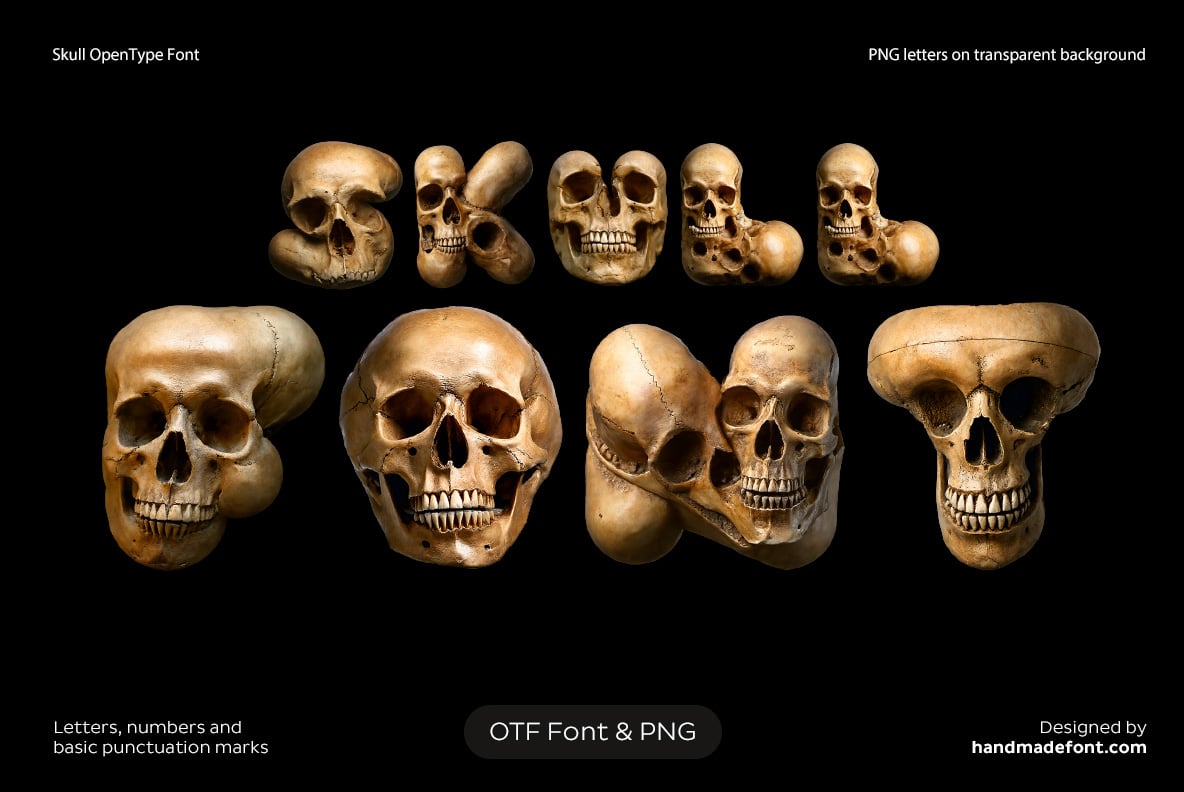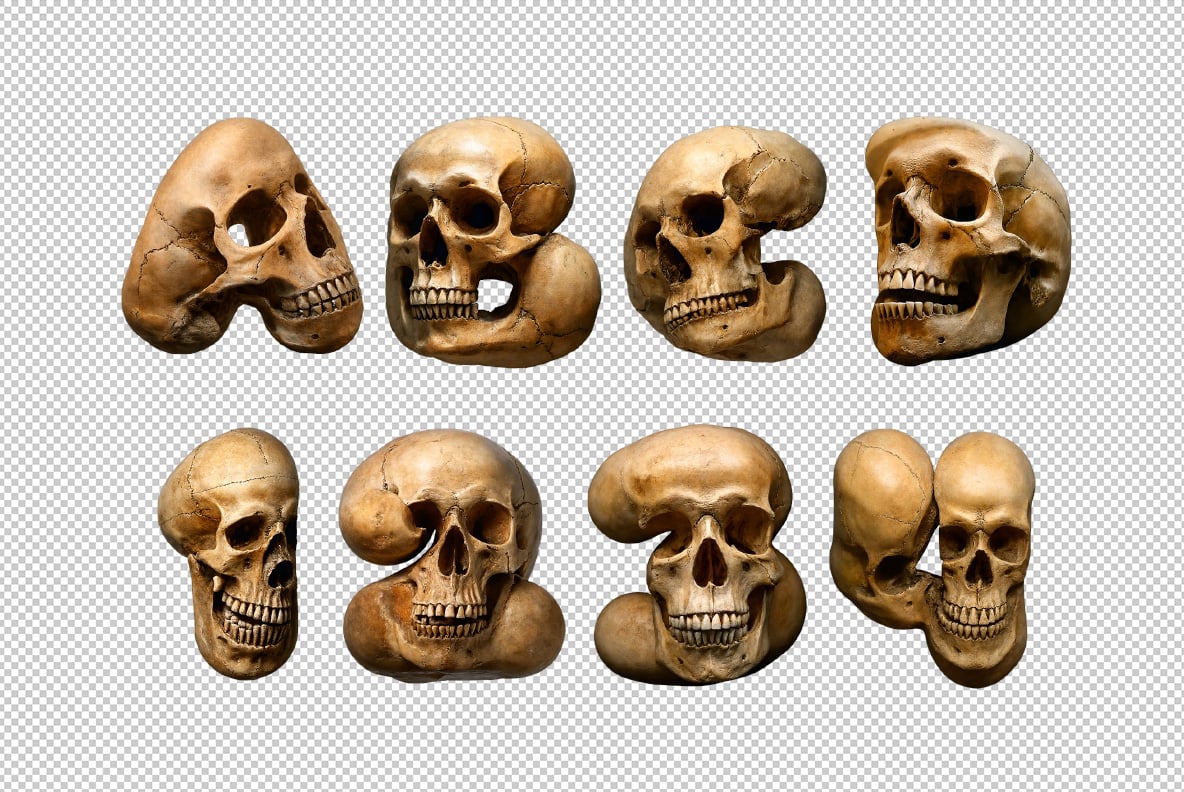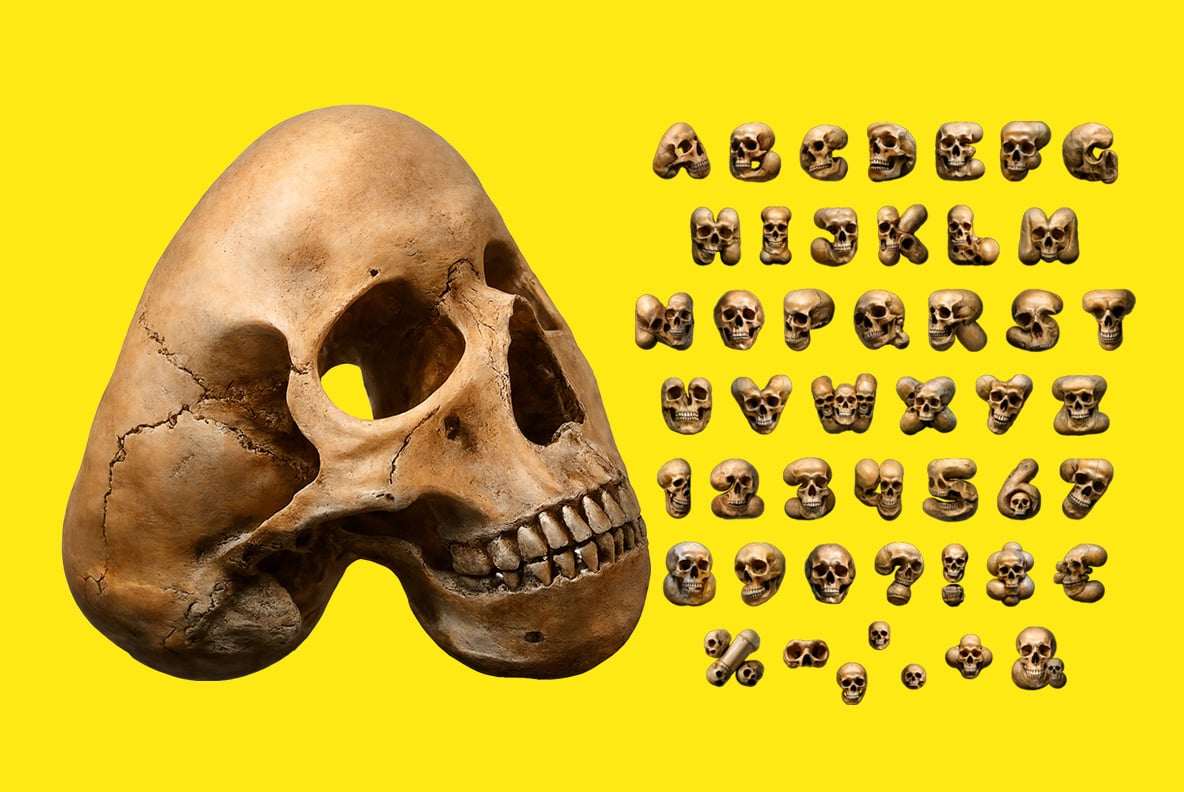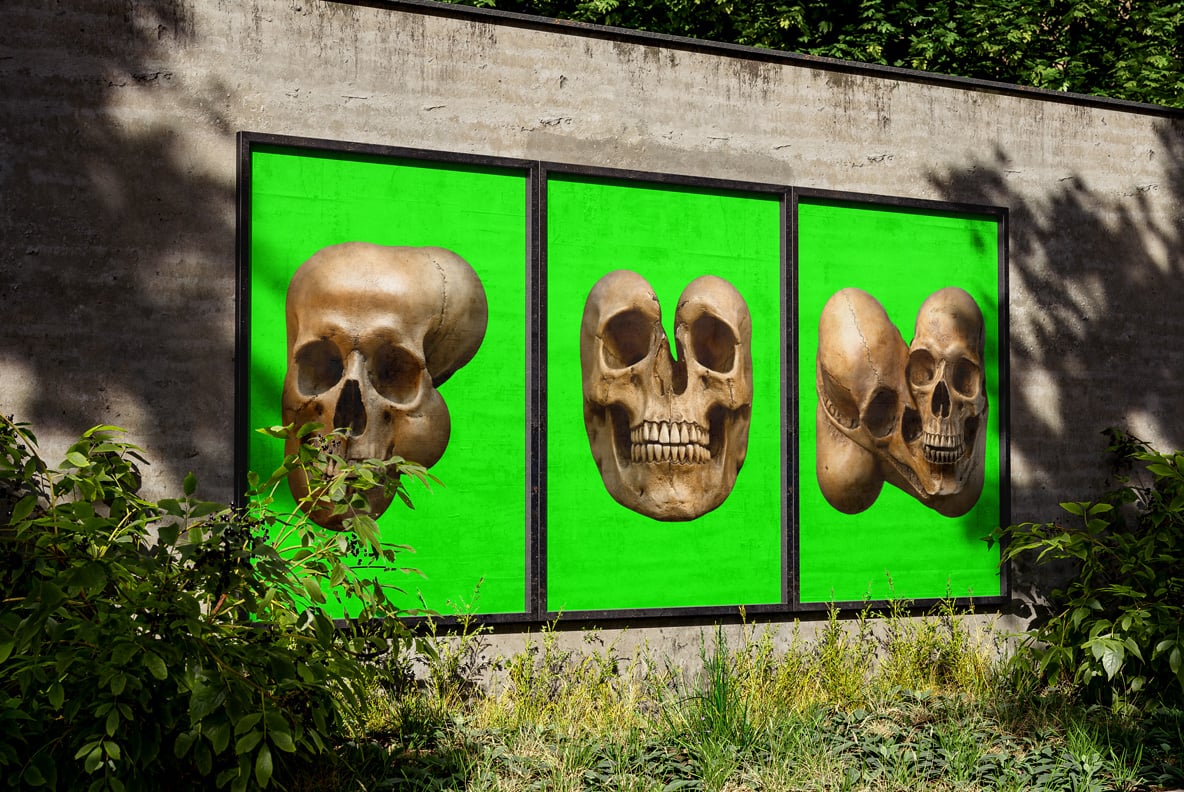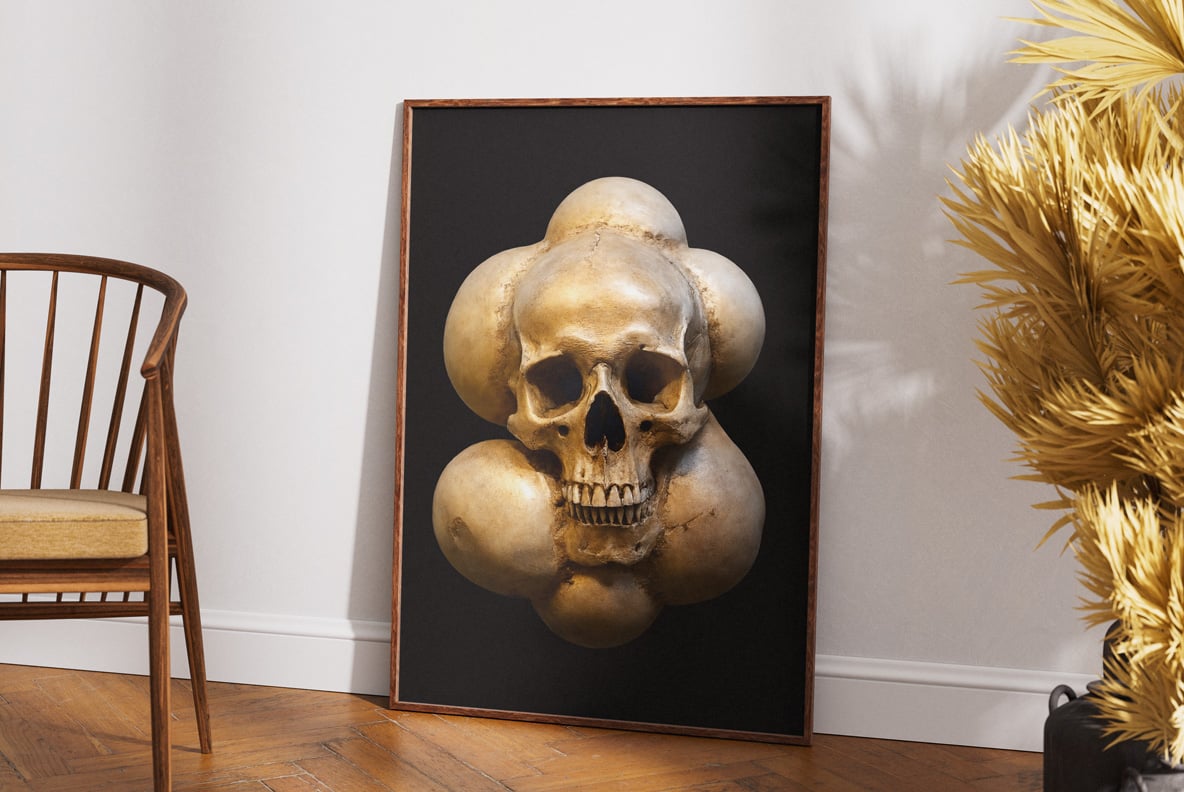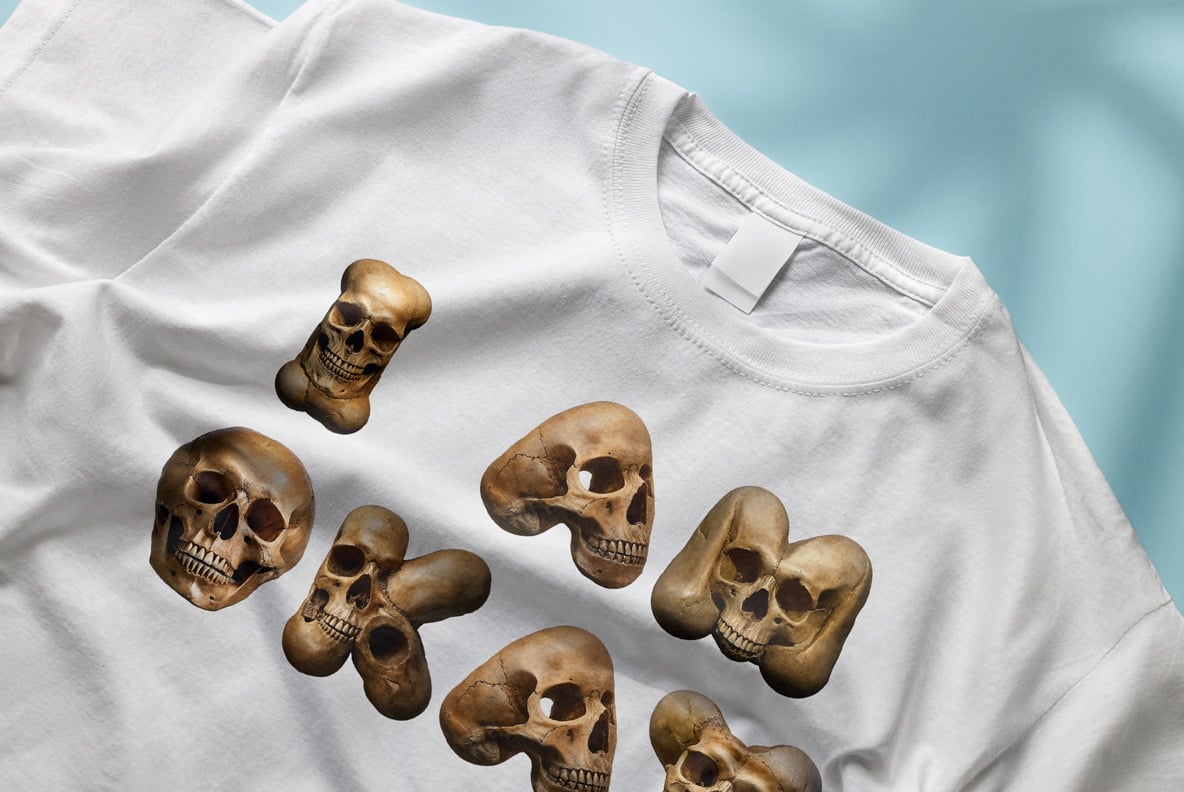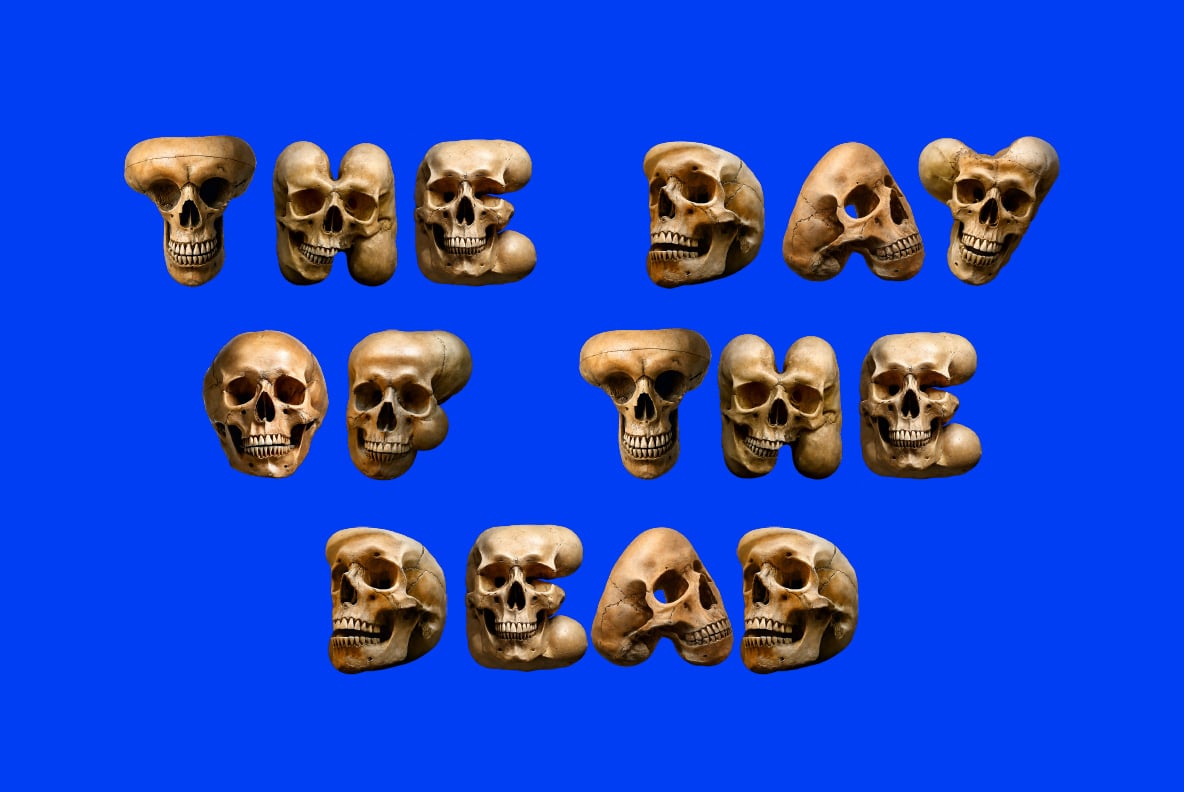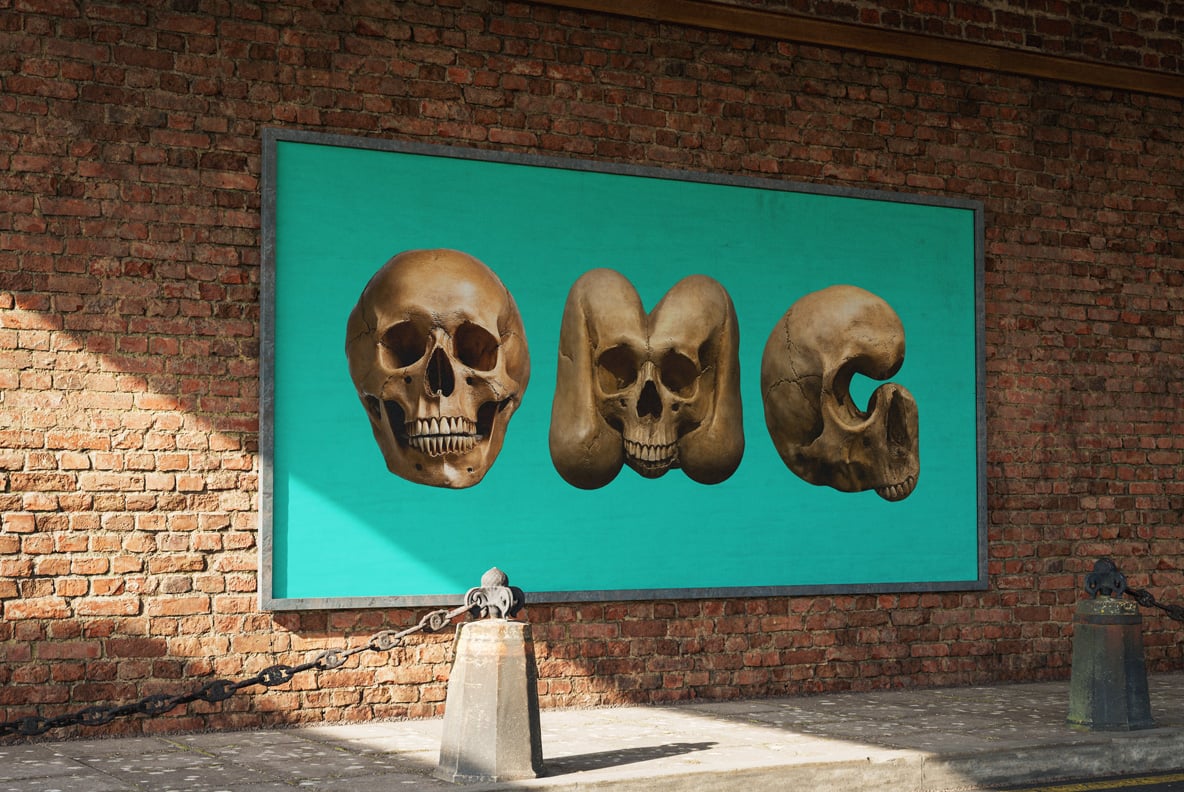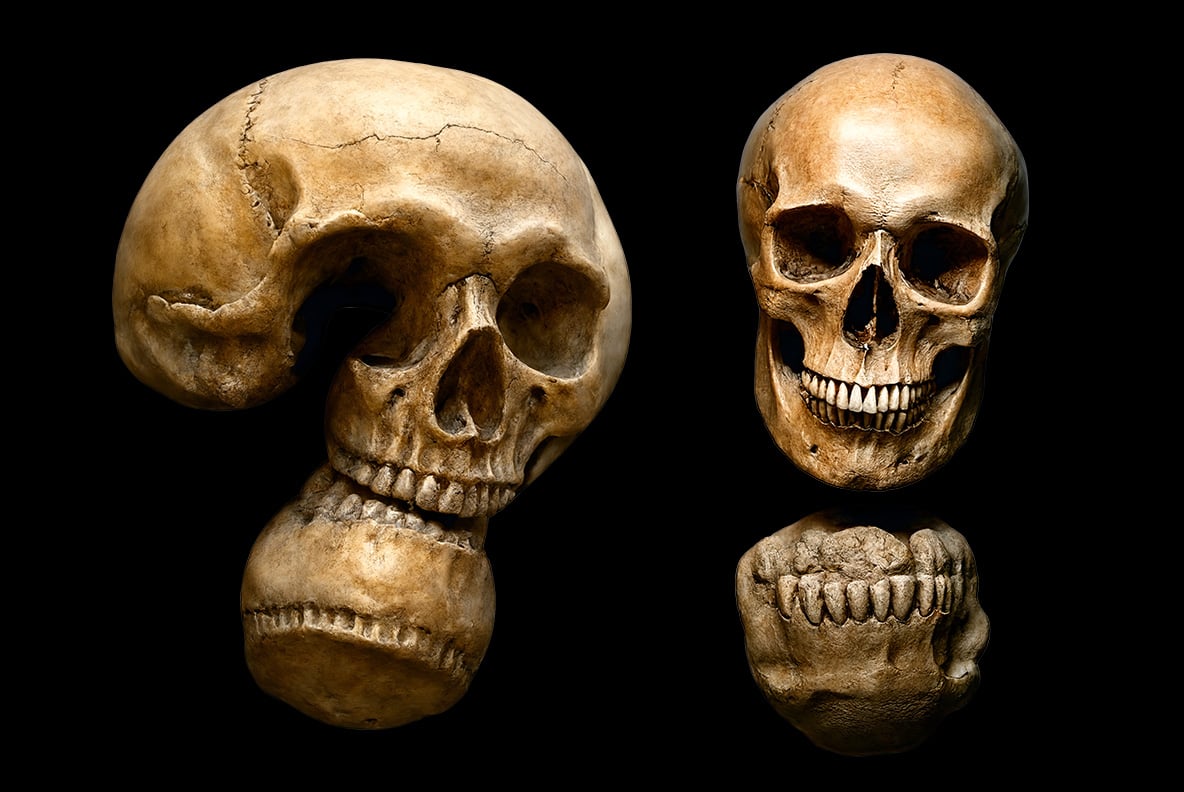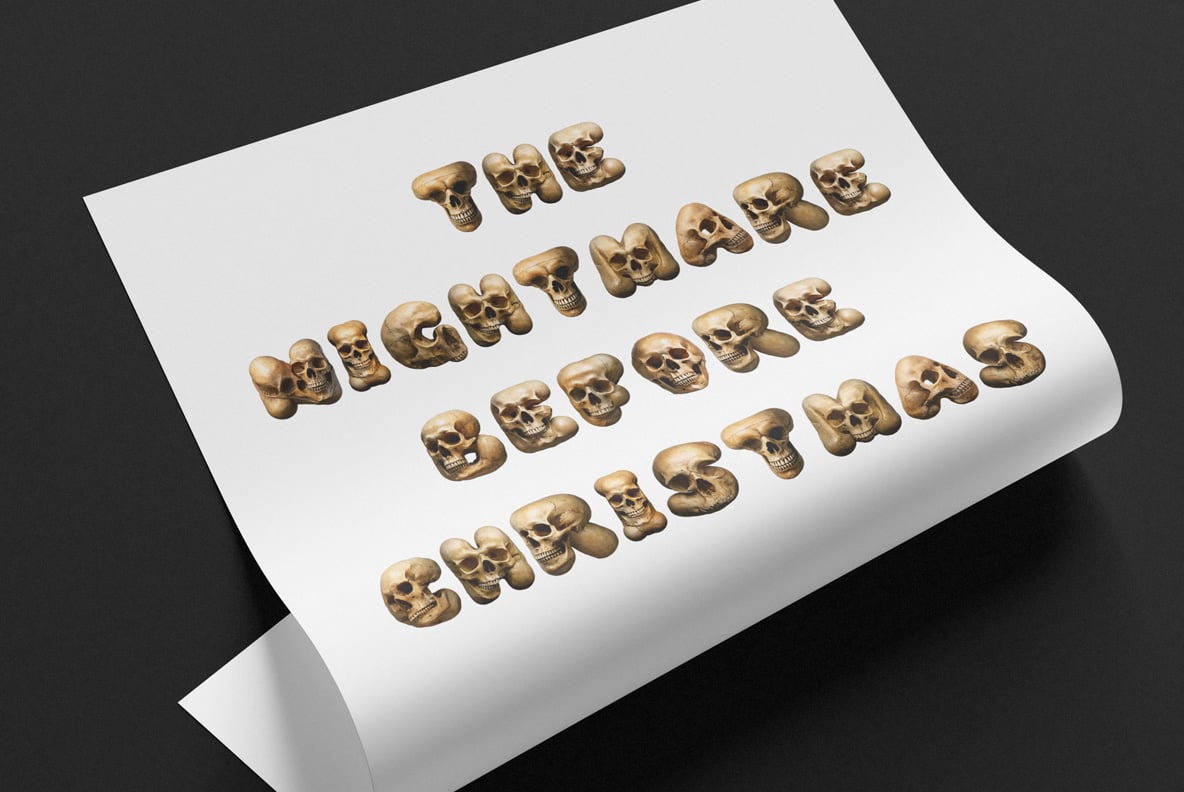
Skull Font
"Skull Font" is a striking, photorealistic typography style that transforms each letter into intricate, bone-like structures. Each character resembles a skull, with meticulously detailed textures that blend eerie realism with artistic flair. Shadows and highlights enhance the three-dimensional effect, making each letter appear sculpted from bone. This haunting font is perfect for horror themes, tattoos, or designs that demand a dark, edgy impact with an almost tangible, lifelike quality.
A high definition OpenType Font. Contains uppercase characters, numerals and basic punctuation. (Draw height roughly 800 pixels). All letters and glyphs that comprises this font you can see on the preview.